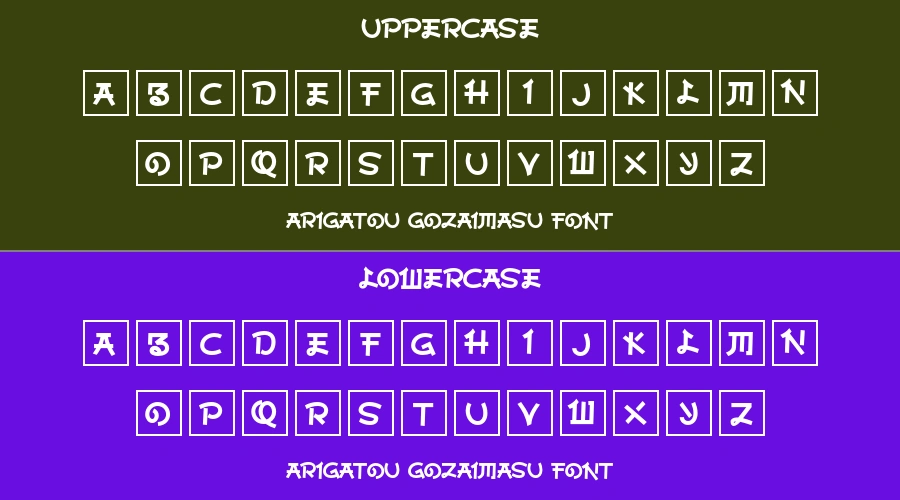
About Arigatou Gozaimasu Font
When typographic excellence matters most, Arigatou Gozaimasu Font delivers through its thoughtful blend of bold expressions and emotional connection. Specially crafted for financial statements, it offers the reliability and reliability required for sophisticated design work. Every detail serves a purpose.
The character set showcases thoughtful details like commanding presence alongside functional technical characters. This proves especially valuable in artistic statements, where special effects directly influences results. Particular attention was paid to tail length and educational suitability during development.